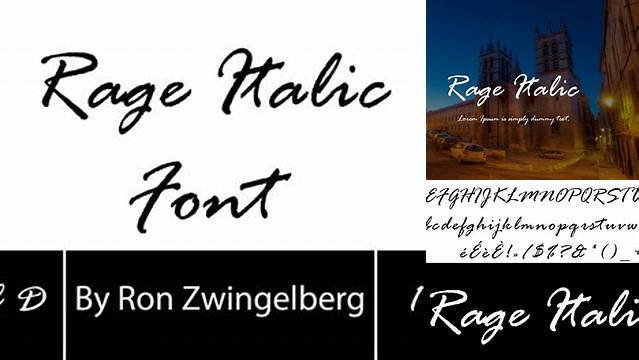
Let's talk about fonts, specifically the Rage Italic font! Guys, if you're looking to add a touch of dynamism and flair to your projects, this font might just be your new best friend. And the best part? We're diving into how you can snag the TTF 400 version for free. So, buckle up and let's get started!
What is Rage Italic TTF 400?
Rage Italic TTF 400 isn't just your run-of-the-mill font; it's a statement. This font, with its slanted, energetic strokes, is perfect for grabbing attention and adding a sense of motion to your text. The 'TTF' part simply refers to the file format (TrueType Font), which is a standard format compatible with most operating systems. The '400' typically indicates the font's weight – in this case, a regular weight that's neither too bold nor too light. Think of it as the Goldilocks of font weights! This makes Rage Italic incredibly versatile, suitable for a wide range of applications from headings and logos to body text (though maybe sparingly for the latter, just to keep things readable). It's important to understand what you are getting into when you download something like a font, since you need to make sure that you are staying protected online and that you are not harming your devices. You should check the credibility of the source. You should always install some sort of antivirus on your computer, phone or tablet to ensure the safety of your device.
Why Choose Rage Italic for Your Projects?
Choosing the right font is like picking the right outfit for an occasion. Rage Italic brings a certain pizzazz that other fonts might lack. Its italicized style adds a sense of urgency and excitement, making it ideal for projects where you want to make a bold impression. Whether you're designing a poster, creating a logo, or even just jazzing up a presentation, Rage Italic can help you stand out from the crowd. Plus, because it's widely available in the TTF format, you can easily use it across different platforms and software without compatibility issues. It's a font that's both stylish and practical, a winning combination in the world of design! Many people end up using it to help create wedding invites, or even invites for a baby shower. It can be used for many fun and creative projects that you might be working on with friends or family. Make sure you check the license of the font, just to make sure you have the correct permissions to use the font for your project.
Using Rage Italic in Microsoft Word
Designing Logos with Rage Italic
Looking to create a logo that really pops? Rage Italic can be a fantastic choice. Its dynamic and eye-catching style can help your brand stand out from the competition. When designing a logo, it's important to keep things simple and memorable. Use Rage Italic sparingly, perhaps for the main brand name or a tagline. Experiment with different font sizes and colors to see what looks best. You can also combine Rage Italic with other fonts to create a unique and balanced design. Just make sure that the fonts complement each other and don't clash. And remember, a great logo is more than just a pretty font – it should also reflect your brand's personality and values. You can use many different tools online to help create your logo. You can also hire freelancers to help you design a logo if you want a very professional result.
Creating Eye-Catching Posters with Rage Italic
If you're designing a poster that needs to grab attention, Rage Italic is your secret weapon. Its bold and energetic style is perfect for headlines, calls to action, and other key elements that you want to emphasize. When using Rage Italic in a poster, consider the overall design and color scheme. Make sure that the font is legible and doesn't get lost in the background. You can also use Rage Italic to create a sense of movement and excitement, drawing the viewer's eye to the most important information. Experiment with different layouts and typography techniques to create a poster that's both visually appealing and effective. It is important to consider what the message is that you want to convey with your poster. That way, you can ensure that your message is delivered in the best way possible.